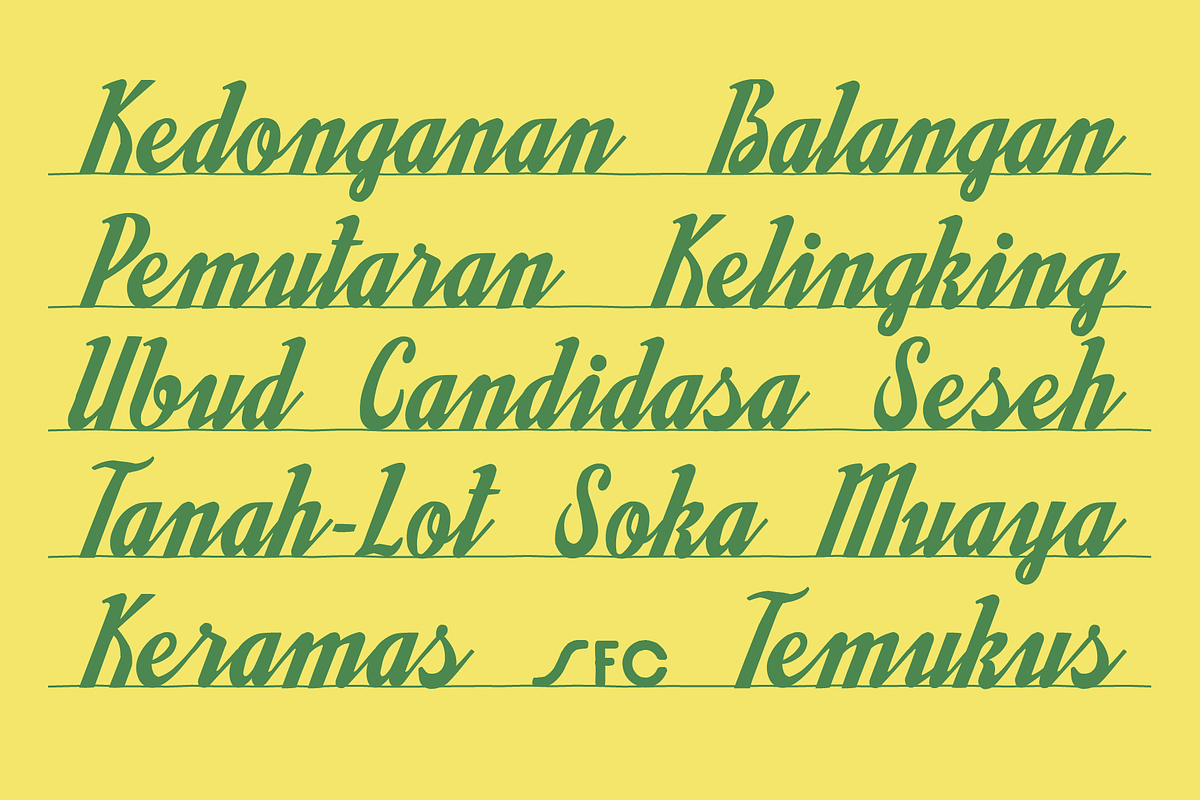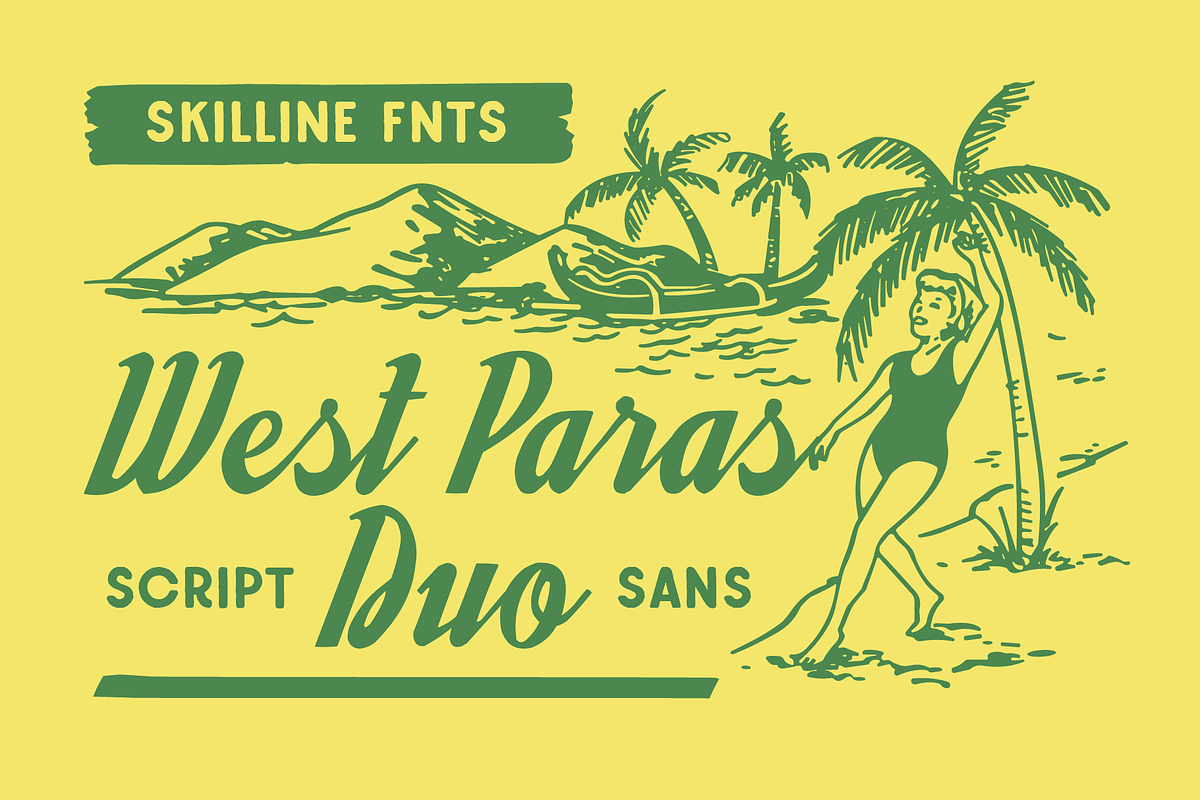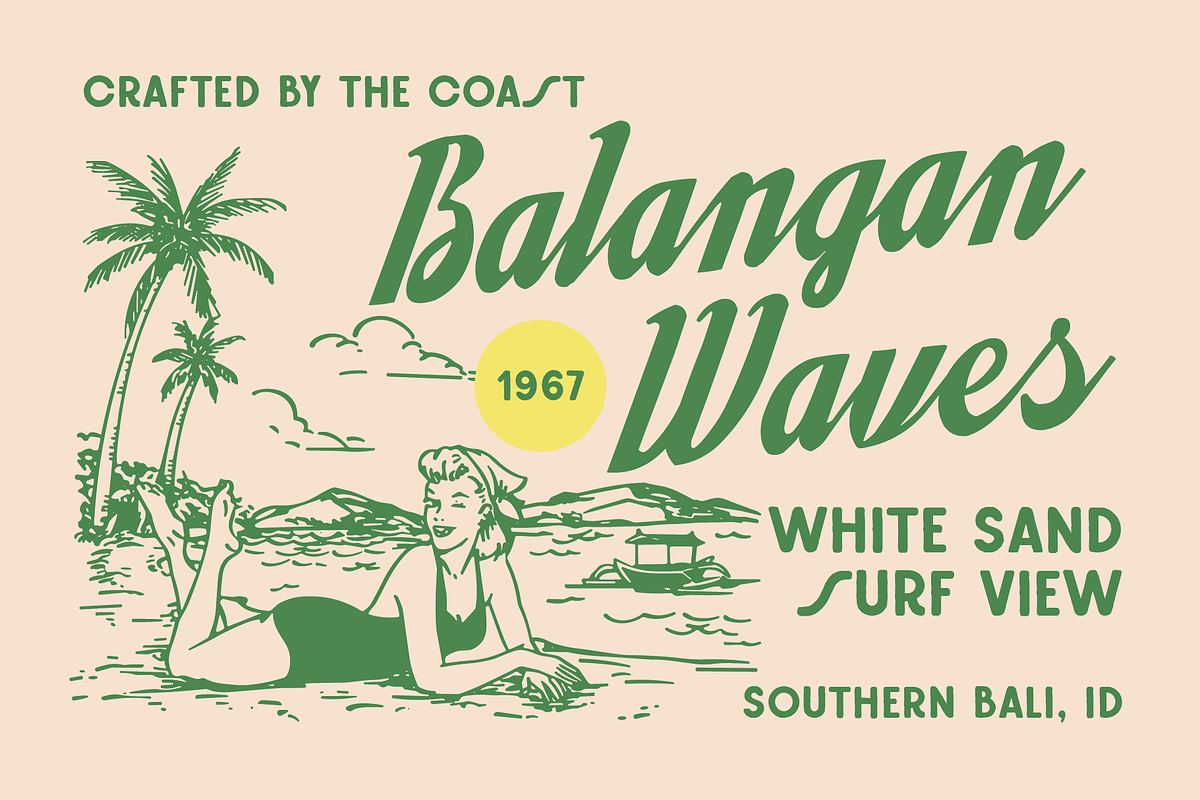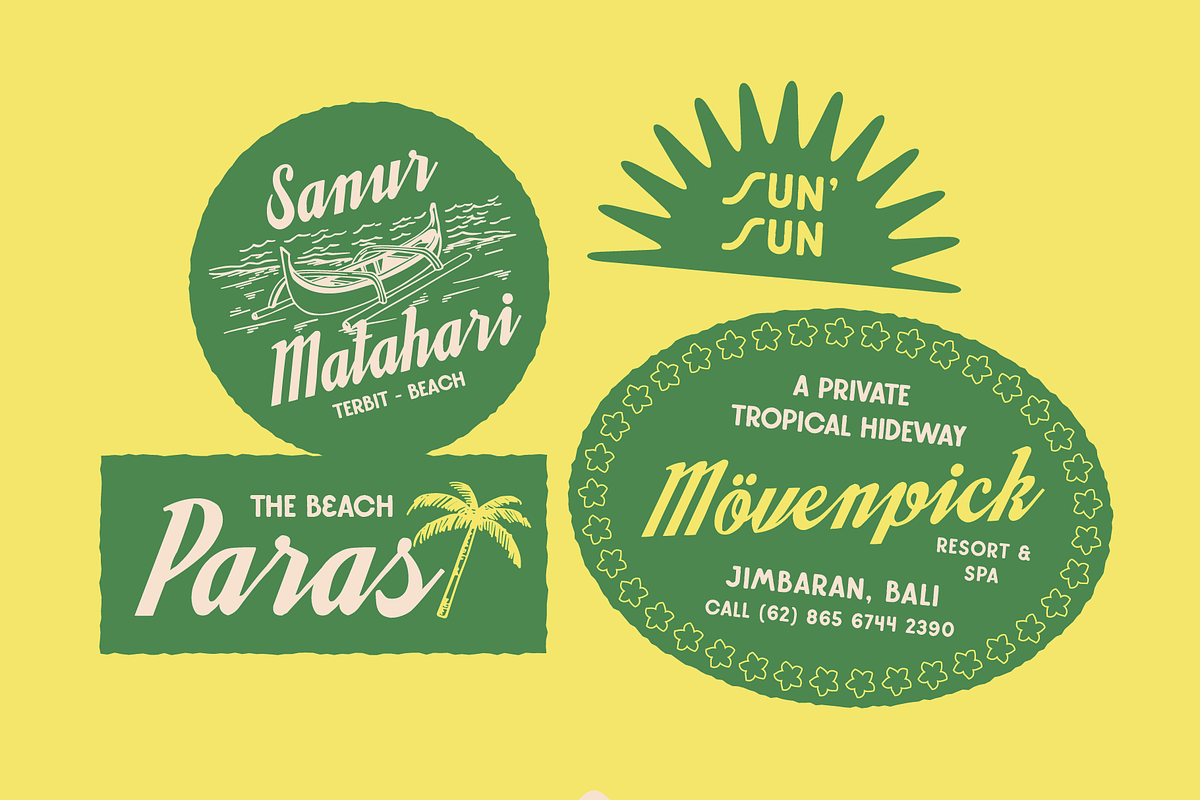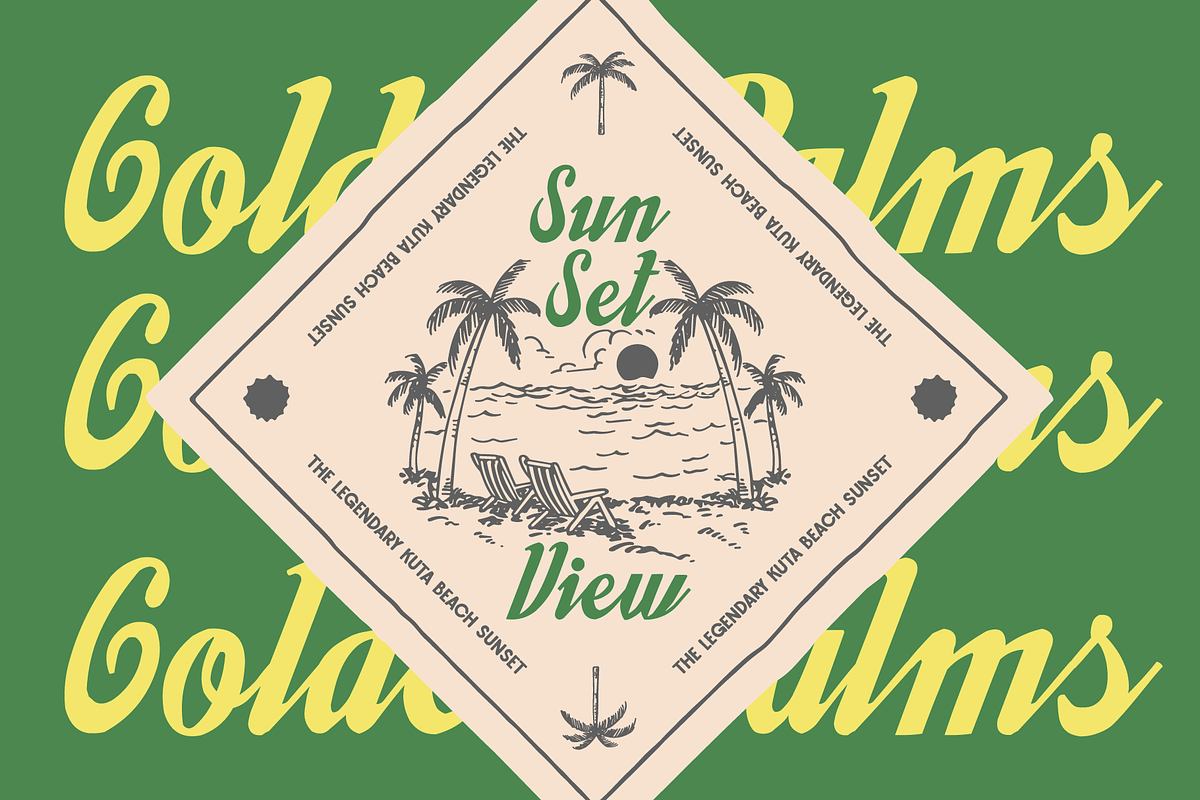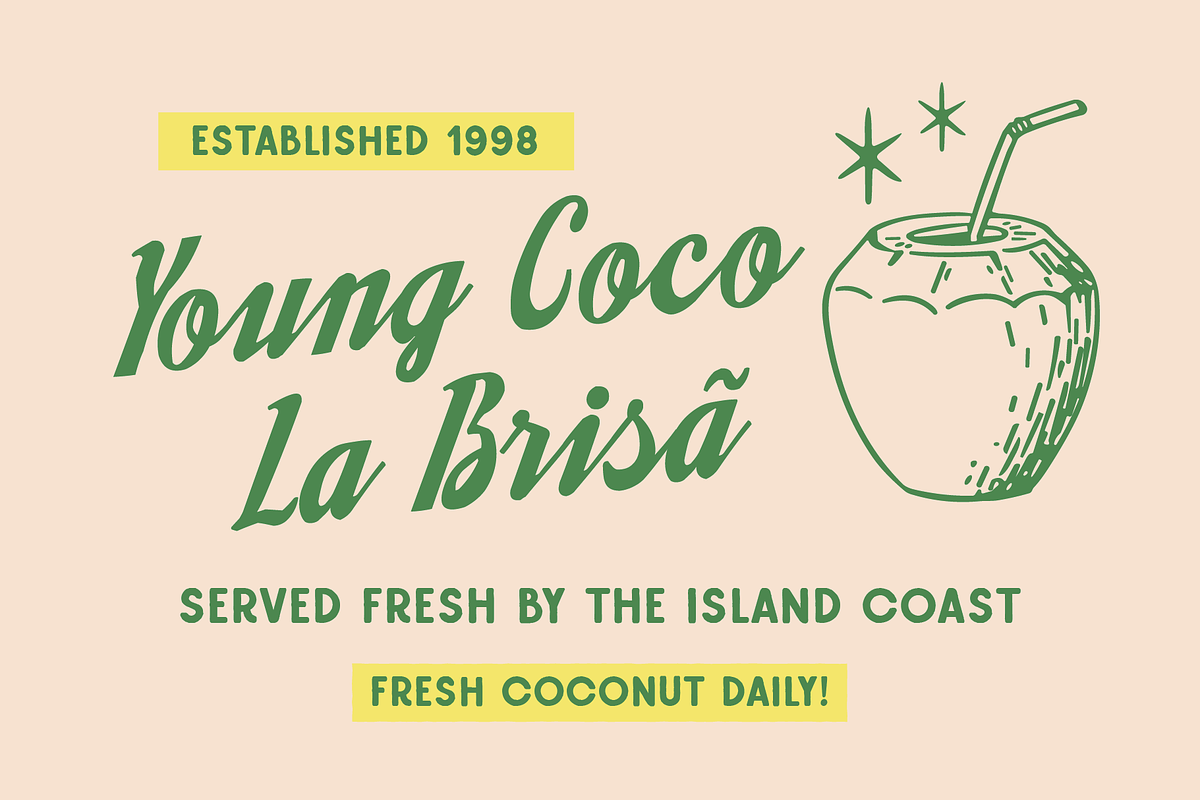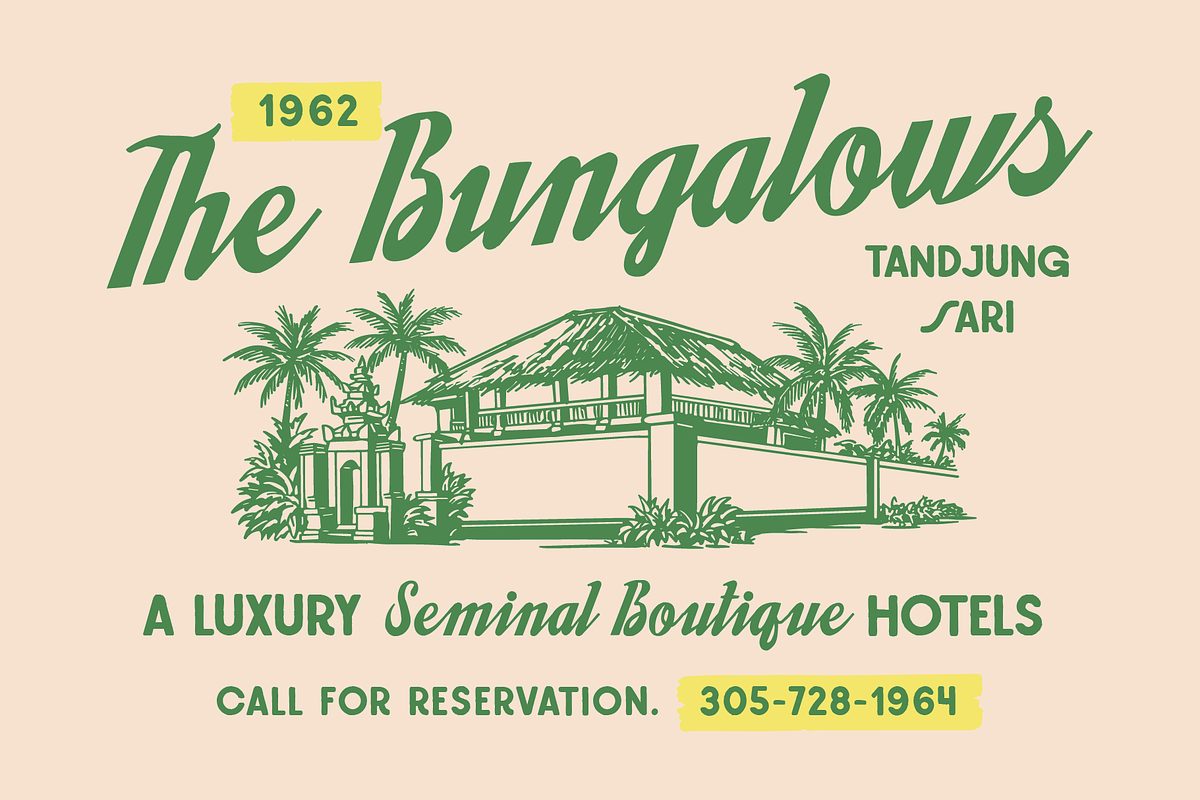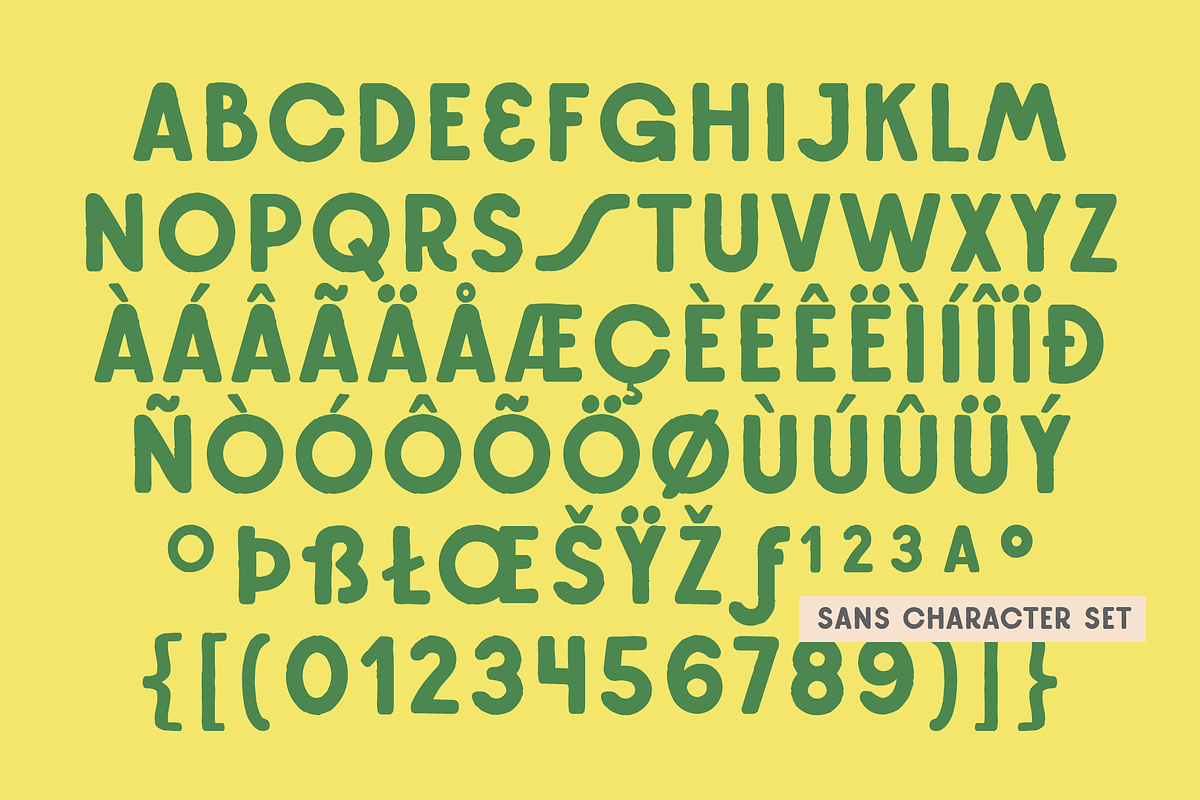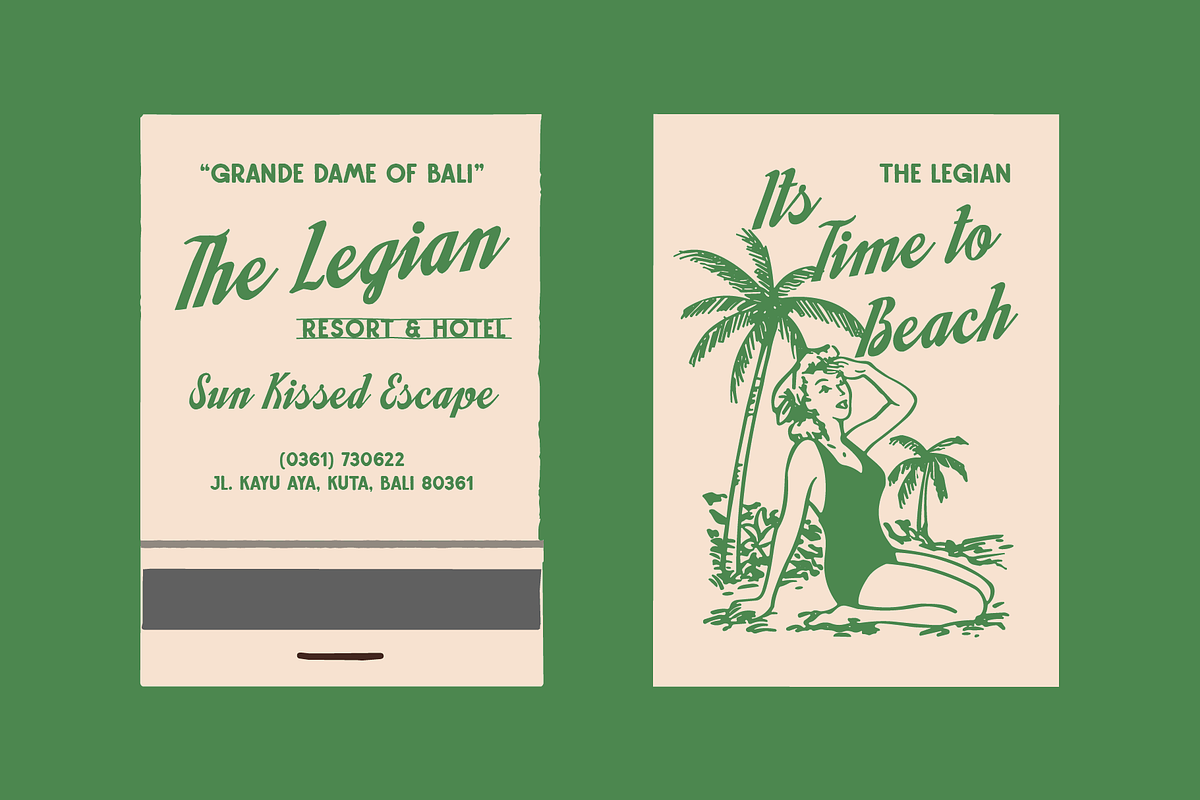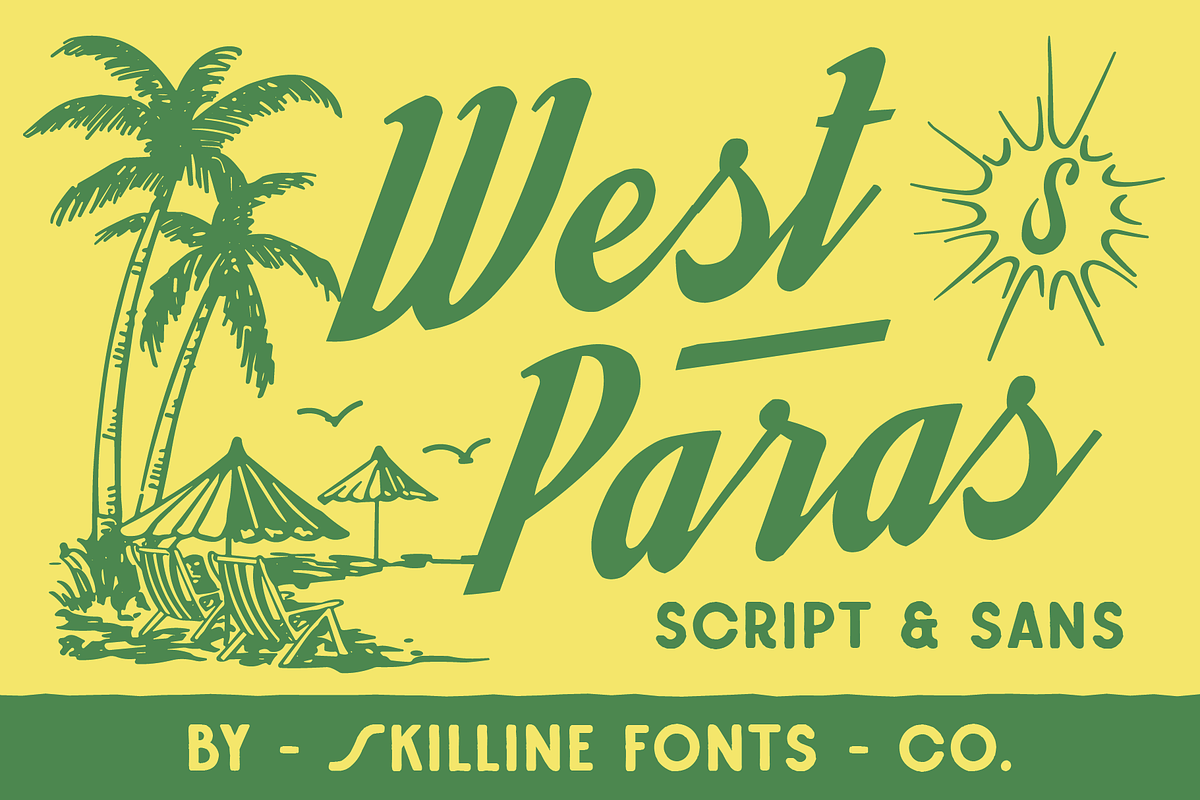
SFC West Paras - Script & Sans
Introducing West Paras, a tropical-inspired font duo that combines a flowing vintage script with a playful handcrafted sans serif. Inspired by Bali's coastal charm, retro resort signage, beach clubs, island cafés, and sun-soaked destinations, this typeface brings a warm and nostalgic tropical atmosphere to any design project.
Designed with branding versatility in mind, West Paras is perfect for resort identities, boutique hotels, beach restaurants, travel brands, summer campaigns, packaging, apparel, logos, social media graphics, posters, and destination-inspired designs. The combination of expressive script lettering and clean complementary sans creates an effortless pairing for professional branding and eye-catching headlines.
Whether you're creating a luxury beachfront resort, a tropical café, a surf-inspired apparel brand, or a vintage vacation poster, West Paras delivers the perfect balance of elegance, personality, and laid-back coastal charm.
Tropical Script & Handcrafted Sans Duo
Smooth Vintage-Inspired Letterforms
Numerals & Punctuation Included
Multi Language Support